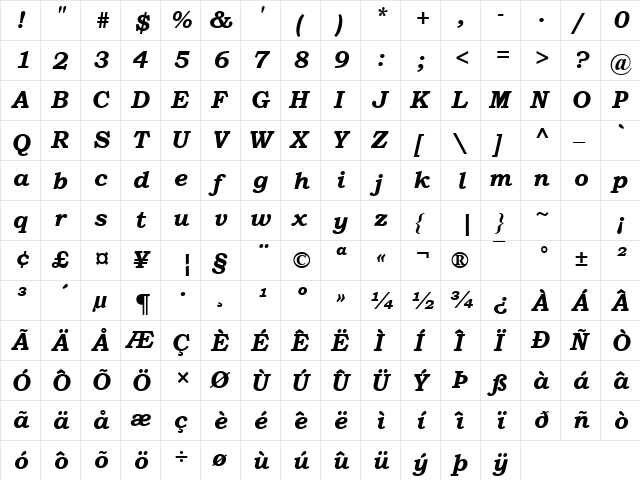
GE Booker Bold Italic
Design Context for GE Booker Typeface
GE Booker takes a measured approach to typography — its balanced proportions and neutral character make it a reliable workhorse for both digital and print work. Its italic angle brings a sense of urgency and motion to the letterforms. The heavy weight commands attention and anchors typographic hierarchies.
Pro Tip: Use GE Booker for emphasis, pull quotes, and subheadings where its slanted energy can add rhythm to the layout.